A Serious Guide to Irreverent Type Design
by James Edmondson.
From the cult favorite typography studio and foundry OH no Type Co. comes this richly illustrated and endlessly entertaining handbook featuring type specimens, process sketches, and instructions for creating typefaces.
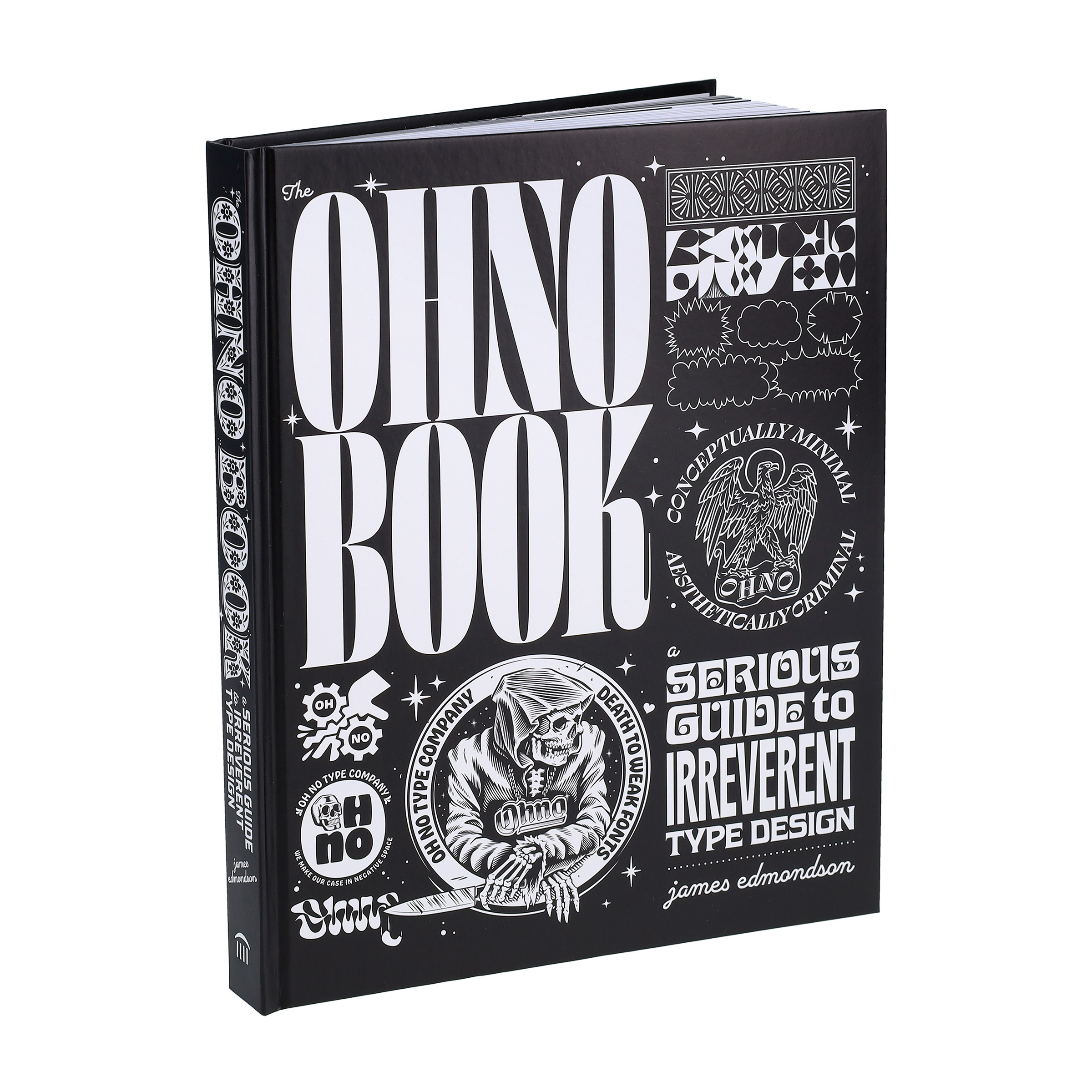
The purpose of this book is to make type design fun. As author and OH no founder James Edmondson explains about type, “For me, it’s been a refuge, an infinite playground where I’m constantly excited to explore something new. It’s a place where I can exercise my need for control in a productive way.”
OH no Type Co.'s wildly imaginative fonts—including Beastly, Casserole, Hobeaux, Ohno Fatface, Polymath, Regrets, and Vulf—lend an exuberant, psychedelic flair to packaging, editorial design, gig posters, and apparel, earning the company cult-like status in the graphic design community. Edmondson shares his knowledge and passion for type design with his signature humor, candor, and warmth beloved by his many students and followers.
Praise for The Ohno Book
“You’re holding a gold mine of type magic. These pages ooze electric letterforms, casting a spell on your eyes, brain, and hands—unlocking shapes you never knew were in you. That’s the power of James Edmondson and his approach to type. His work hypnotizes, inspires, and dares you to make letters that are bolder, funkier, and flat-out better.”
“The Ohno Book is a raw, honest, and wildly entertaining look at type design through the eyes of one of the field’s most inventive artists,James Edmondson. Sure, he covers foundational concepts, software hacks, and insider jargon, but more important, he peels back the layers of his creative process. With an emphasis on curiosity, community, and spacing (seriously, it’s everything), James reveals what truly shapes great type. Whether you’re just dipping your toes into font making or you’re already a grizzled vet, this is the design book you didn’t know you needed!”
“It’s difficult to express how big of an impact James has had on the world of type design—he got everyone excited to get a little weird. As you page through this incredible book, you’ll start seeing his influence everywhere—in the branding of your favorite shops, on the labels of the coolest products, on tees and tats and everything in between.”
“The best typefaces are like handmade tools—made to serve a purpose but always retaining the beautifully imperfect heart and soul of the human who made them. James’s fonts do that. And so does this book.”
“James has a way of talking about fonts that resonates with you, inspires you, and makes you see that type design, besides everything else, is also a lot of fun.”